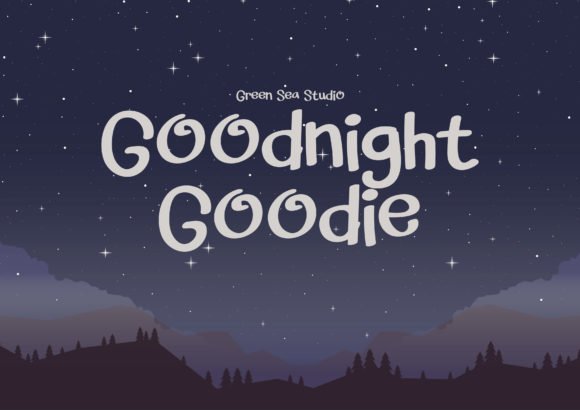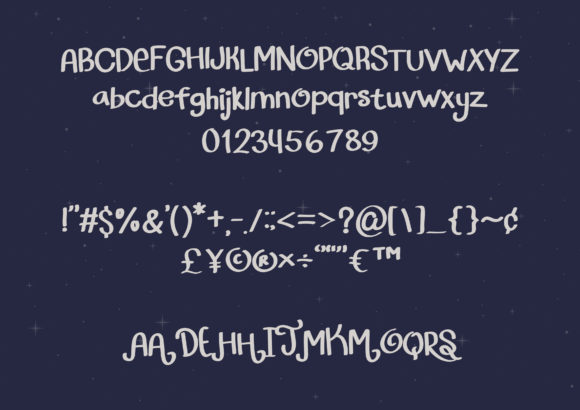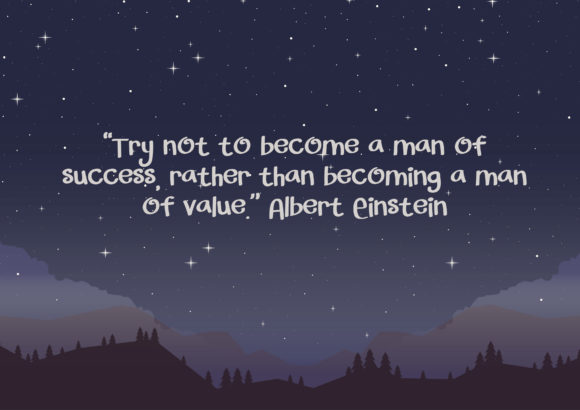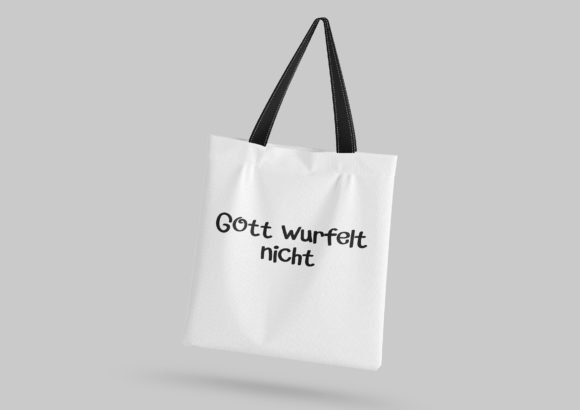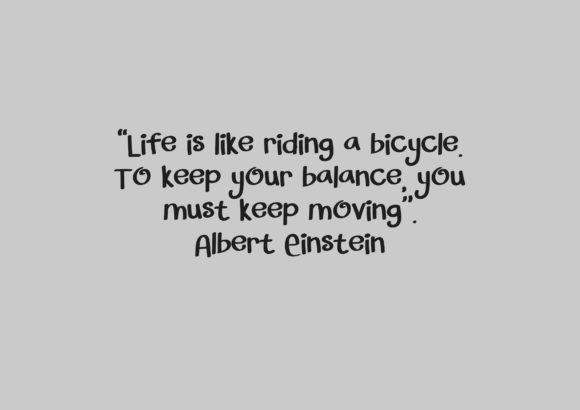
The Magic of Goodnight Goodie Font
Have you ever found yourself lost in a sea of creative possibilities, trying to decide on the perfect font to elevate your latest project? You’ve spent hours scouring through design resources, only to stumble upon that one perfect combination of style and character that makes your heart skip a beat. For designers like you, the quest for the perfect font is a never-ending journey of discovery and inspiration.
That’s where the Goodnight Goodie Font comes in – a playful and cool display font that’s perfect for turning your creative ideas into stunning works of art. Whether you’re looking to add a touch of whimsy to your Instagram posts or create beautiful calligraphy scripts for DIY projects, this font has got you covered.
Goodnight Goodie Font Key Features
- Font Family: Goodnight Goodie is a hand-drawn, script font designed to evoke a sense of warmth and playfulness.
- Resolution: Designed for high-resolution displays, making it suitable for use in digital applications such as web design, social media, and mobile apps.
- Unique Characteristics: Features a whimsical, handwritten style with subtle imperfections, giving it a personal and friendly feel.
Goodnight Goodie Font Review
As a designer, I’m always on the lookout for unique and captivating fonts to elevate my projects. The Goodnight Goodie Font caught my eye with its whimsical and playful vibe. Here’s my honest review.
- Unique letterforms: Goodnight Goodie Font features a mix of rounded and angular shapes that create a charming, hand-drawn feel.
- Playful flourishes: The font includes decorative elements like swashes and tails that add a touch of personality to text.
- High legibility: Despite its quirky design, Goodnight Goodie Font remains easy to read, making it suitable for a wide range of applications.
- Limited language support: The font only includes a basic Latin character set, which may limit its use for multilingual projects.
- No bold or italic weights: While the font’s unique design is a strength, the lack of bold or italic weights may make it less versatile for certain design applications.
Overall, I appreciate Goodnight Goodie Font’s creative spirit and unique aesthetic. While it may have some limitations, it’s a great choice for designers looking to add a touch of whimsy to their projects.
The Goodnight Goodie font is suitable for:
- Children’s book illustrations.
- Handmade or vintage-style designs.
- Wedding invitations or party decorations.
Great Vibes Font is a modern, elegant script font perfect for adding a touch of sophistication to your designs. It’s ideal for wedding invitations, branding, and packaging. Compared to Goodnight Goodie Font, Great Vibes Font has a more refined and polished look, making it suitable for high-end projects.
Pacifico Font is a beautiful, handwritten font with a beachy vibe. It’s great for creating a relaxed, casual atmosphere in your designs. Unlike Goodnight Goodie Font, Pacifico Font has a more laid-back feel, making it perfect for beach-themed designs, summer promotions, or outdoor events.
Alex Brush Font is a elegant, cursive font with a classic feel. It’s ideal for creating a sense of warmth and approachability in your designs. Compared to Goodnight Goodie Font, Alex Brush Font has a more refined and sophisticated look, making it suitable for formal invitations, branding, and editorial designs.
Dancing Script Font is a playful, cursive font perfect for adding a touch of whimsy to your designs. It’s great for creating a fun, energetic atmosphere in your designs. Unlike Goodnight Goodie Font, Dancing Script Font has a more playful and dynamic feel, making it perfect for party invitations, social media graphics, or promotional materials.